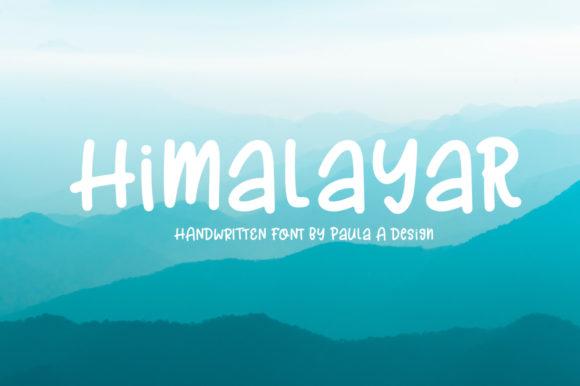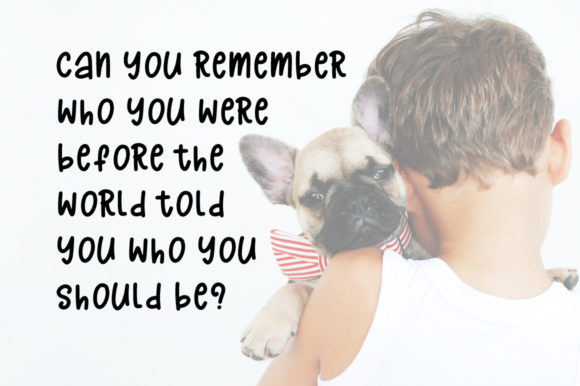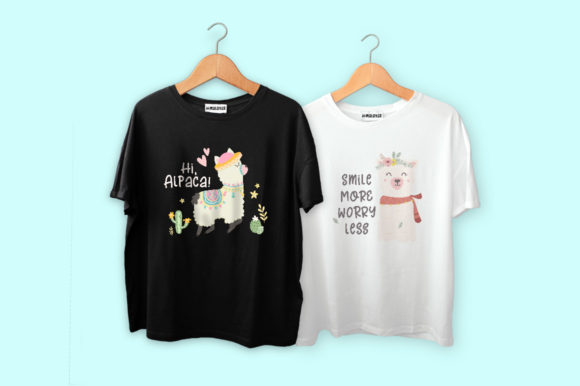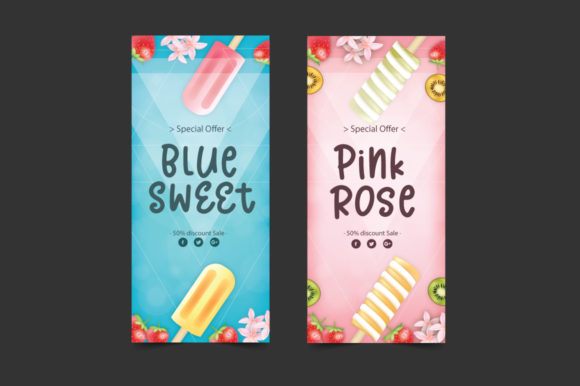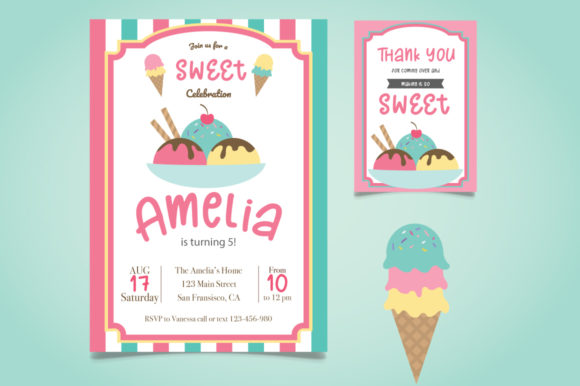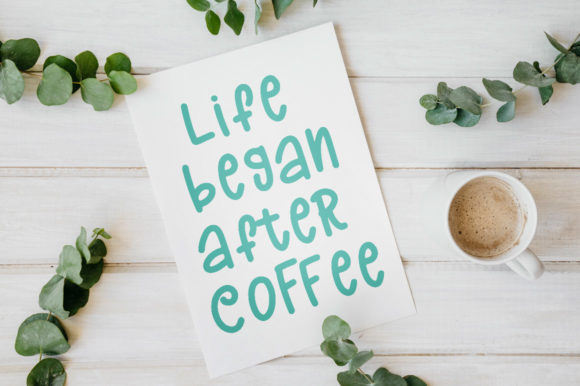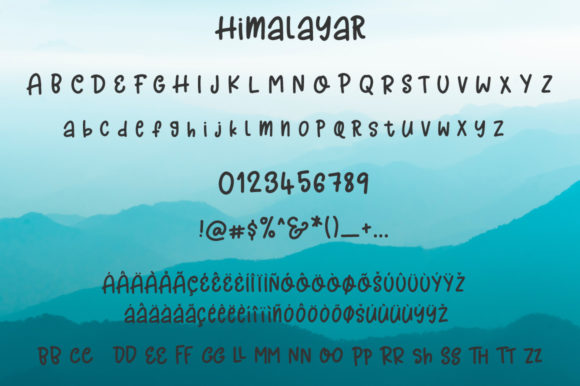
Himalayar Font
About Himalayar Font
Himalayar is an adorable handwritten font originally conceived for inclusion in a recipe book, specifically to convey casual comments. This versatile typeface is well-suited for a range of project styles where a quick, relaxed handwritten aesthetic is desired.
The charm of Himalayar lies in its cute and informal character. The handwritten style adds a personal touch to the text, creating an approachable and friendly atmosphere. This font is perfect for conveying a laid-back and casual vibe in your designs, making it particularly effective for projects that require a touch of informality and warmth.
Given its versatility, Himalayar adapts seamlessly to a variety of design contexts. Whether used for recipe book annotations, informal notes, or any other creative project, it brings a quick, handwritten style that adds character and authenticity. Its adaptability makes it an excellent choice for designers seeking a font that effortlessly blends into different styles and applications.
Himalayar’s initial design for a recipe book demonstrates its practicality in conveying casual comments in a friendly manner. However, its versatility extends far beyond, making it suitable for a multitude of projects where a relaxed handwritten typeface can enhance the overall visual appeal.
In essence, Himalayar is more than just a font; it’s a design tool that injects a dose of cuteness and informality into your projects. Whether you’re working on a recipe book, casual notes, or other creative endeavors, Himalayar brings a handwritten charm that effortlessly communicates a quick and relaxed style.